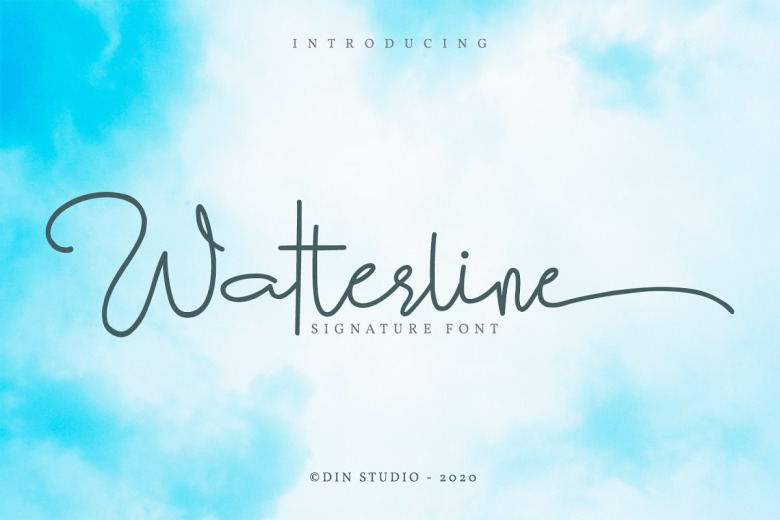
Watterline Elegant Signature Script Font
Watterline Script Font is a elegant signature typeface. It brings a modern and attractive typeface. Made for any professional project branding. Suitable for any design needs : logo, branding, modern advertising design, logos, poster quote, book / cover Title, editorial design, website / blog, card, t-shirts, and any hand-lettered needs.